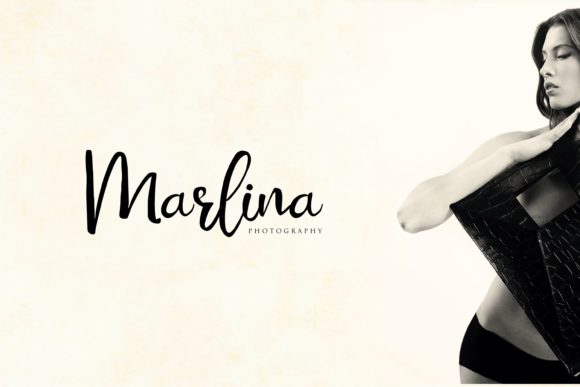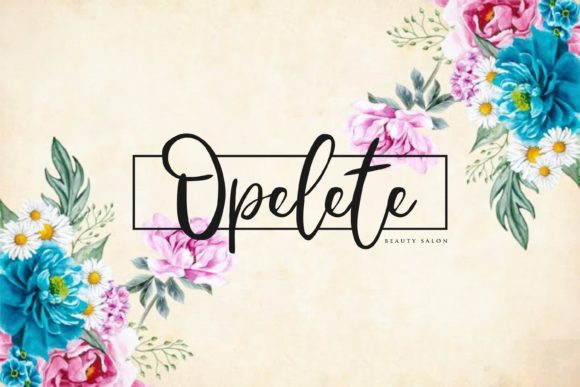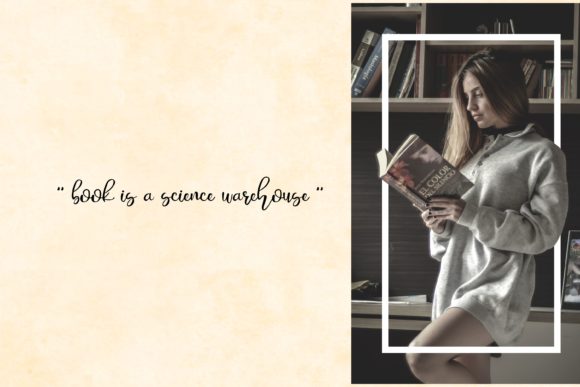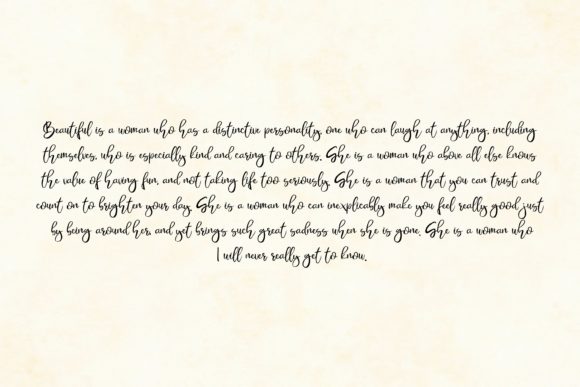
Introduction to Rotenburg Font
As a designer, there’s nothing quite like the thrill of bringing a creative project to life. You’re brainstorming ideas, sketching out concepts, and experimenting with different fonts – until that perfect one catches your eye. For me, it was the elegant curves and sophisticated flair of the Rotenburg Font that made my heart skip a beat.
With its dancing baseline and classy, modern aesthetic, the Rotenburg Font is the perfect design resource for adding a touch of luxury to your next project. Whether you’re working on a high-end branding campaign or a elegant wedding invitation, this font is sure to elevate your design to the next level.
Key Features of Rotenburg Font
- Unique blend of modern and traditional design elements, ideal for creative projects.
- Includes a comprehensive character set, including uppercase and lowercase letters, numbers, and punctuation marks.
Honest Review: Rotenburg Font
I recently had the chance to work with the Rotenburg Font, and I must say, it’s been a game-changer for my creative projects. This free download is a high-quality design resource that’s perfect for anyone looking to add some elegance to their work.
- ✨ High-quality typography: The Rotenburg Font has a sophisticated and refined look that’s sure to elevate any design.
- ✨ Versatility: This font is perfect for a wide range of creative projects, from business cards to magazine layouts.
- ⚠️ Limited character set: While the font is high-quality, it only includes a limited character set, which can be a problem for those who need to type in multiple languages.
- ⚠️ Not ideal for small text: Due to its elegant design, the Rotenburg Font can be difficult to read in small text sizes.
Overall, I’m really impressed with the Rotenburg Font. It’s a fantastic design resource that’s perfect for those looking to add some sophistication to their work. With a little planning, it can be a great addition to any creative project.
The Rotenburg Font is commonly used in design projects that require a high-quality, free font with a transparent background. It’s ideal for use in logos, business cards, and other design elements that require a clean and modern look.